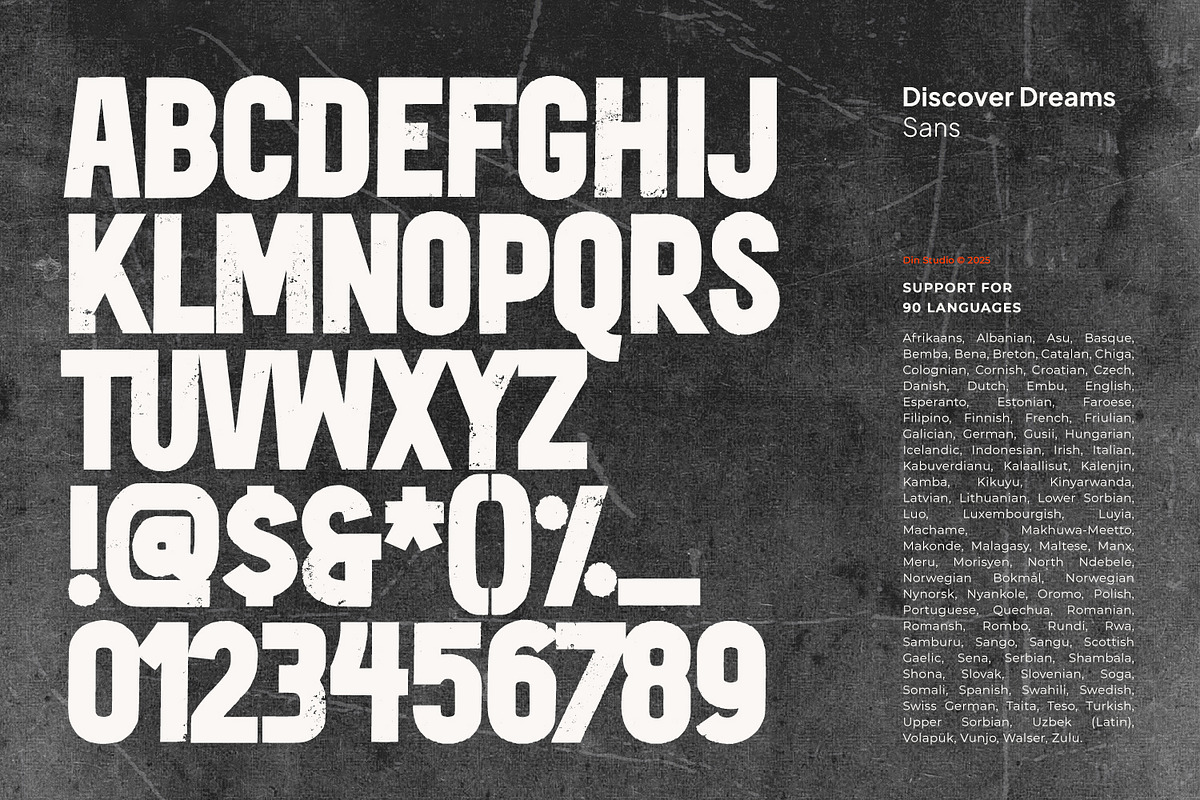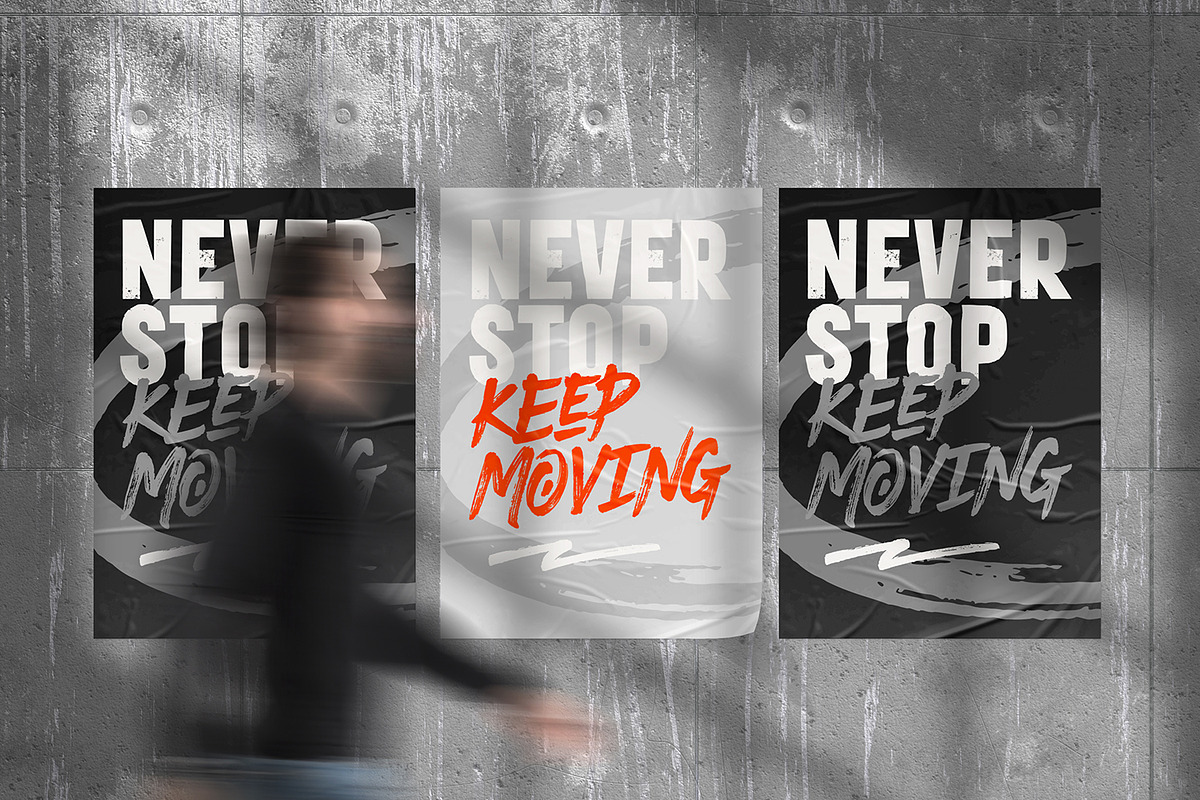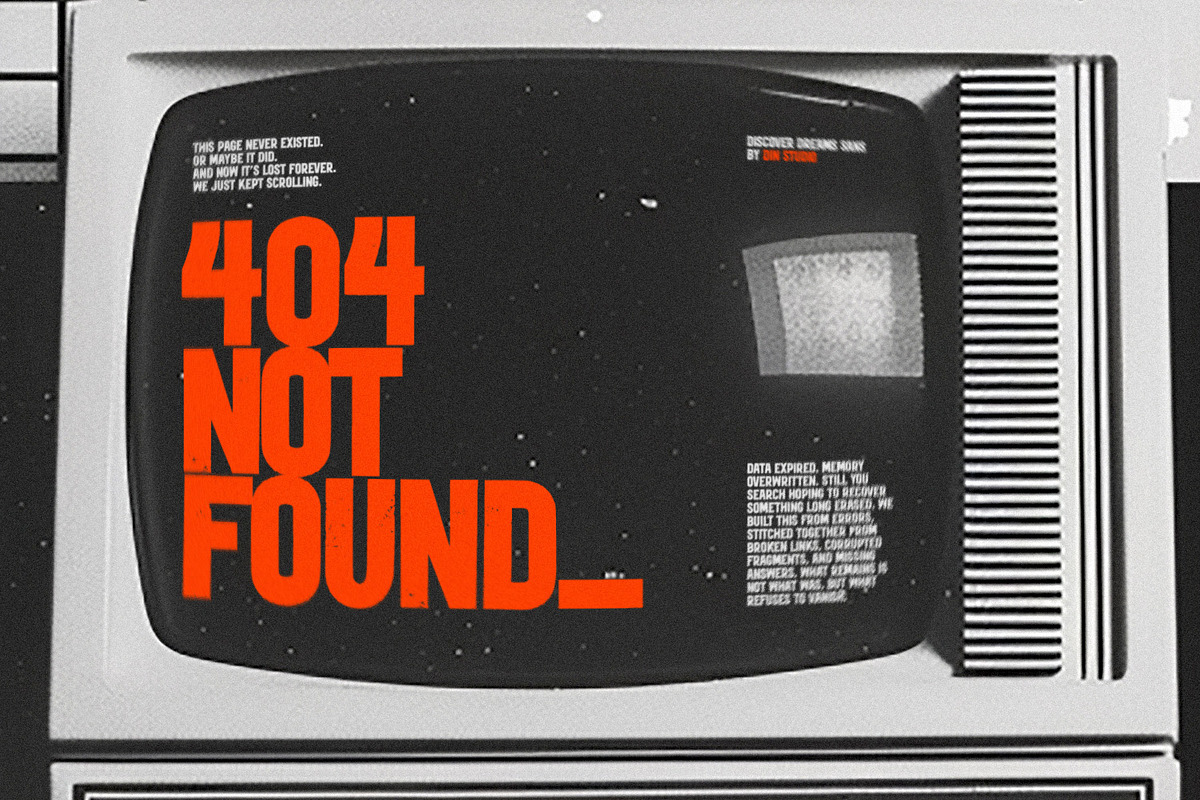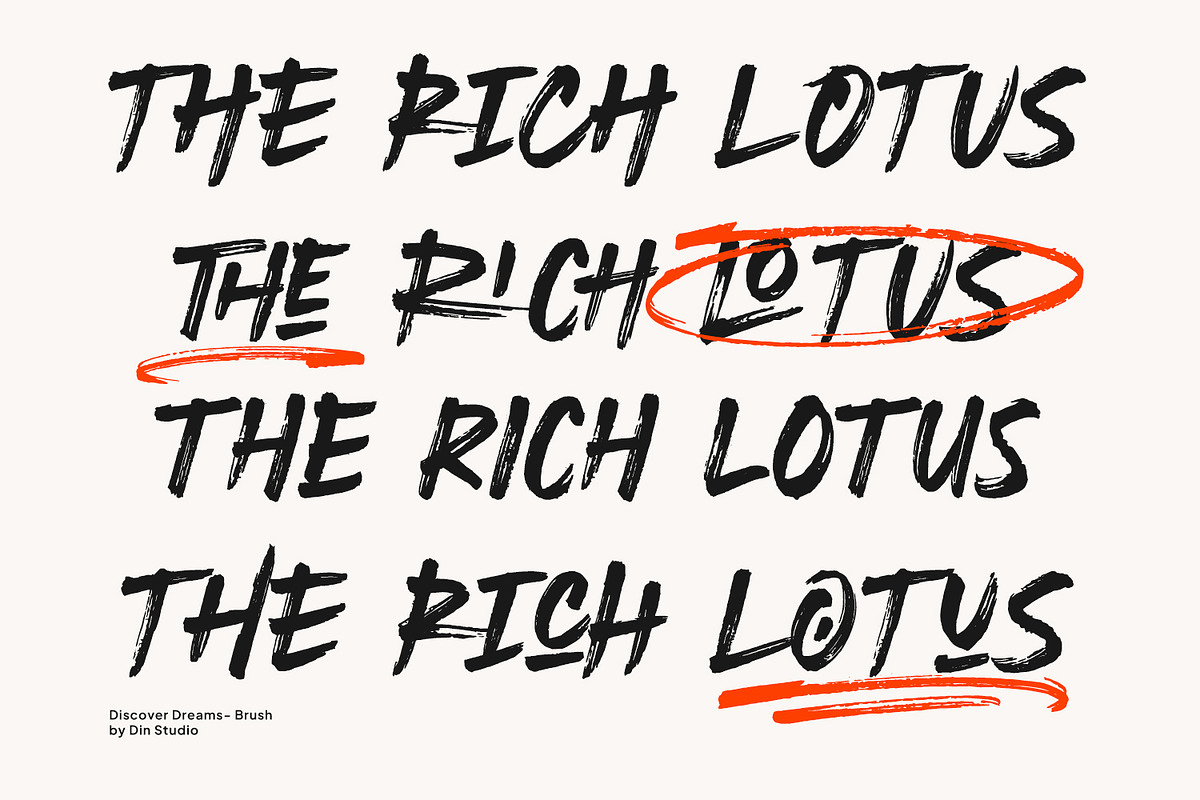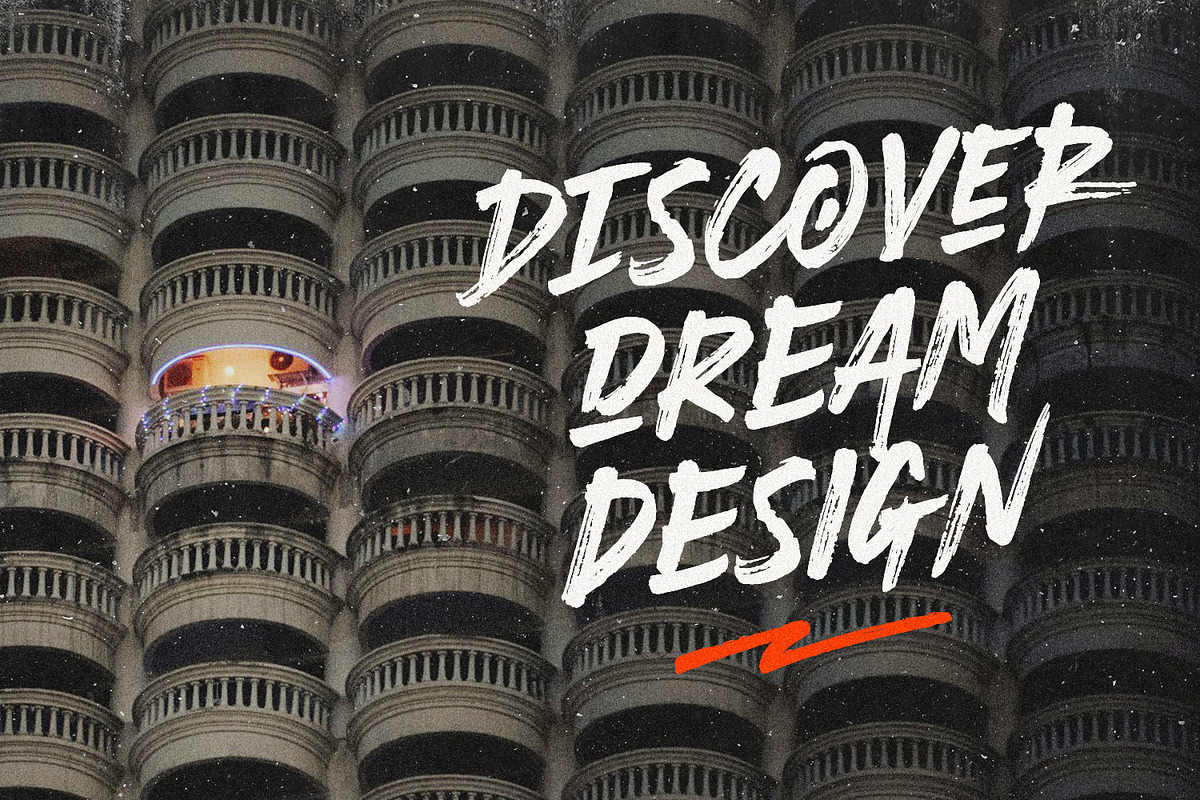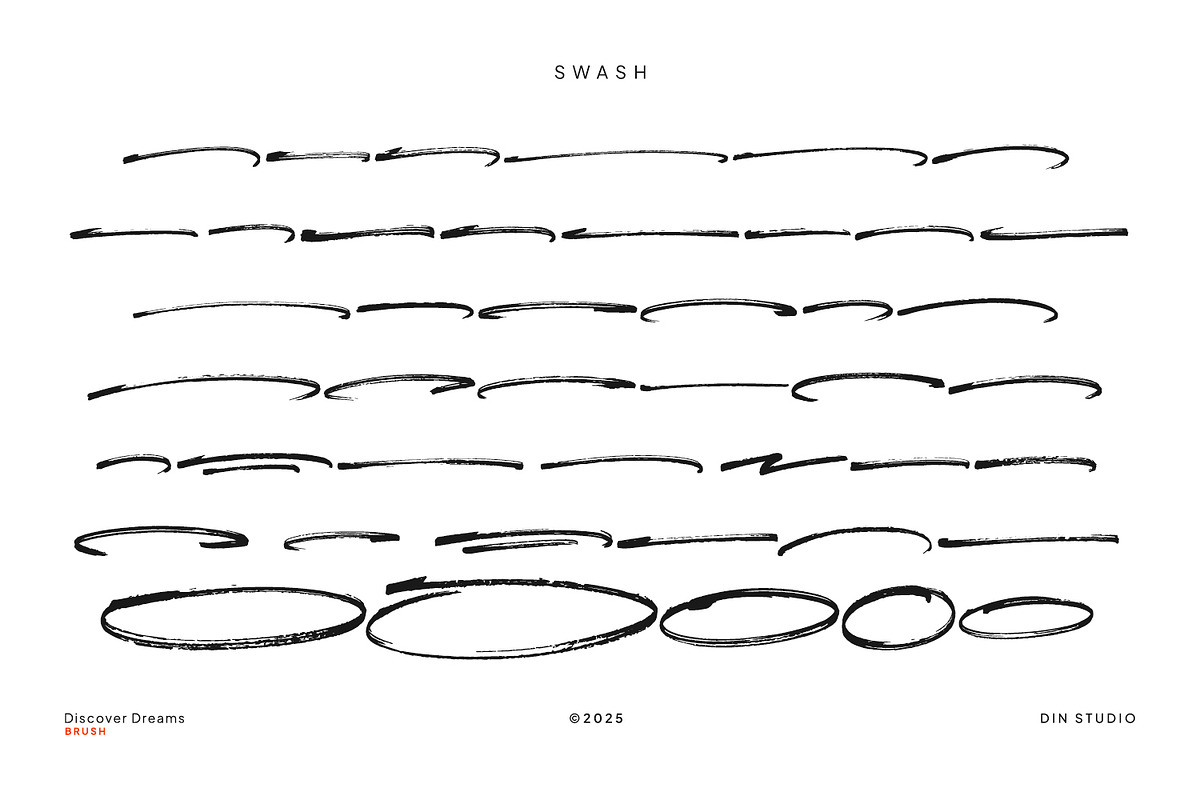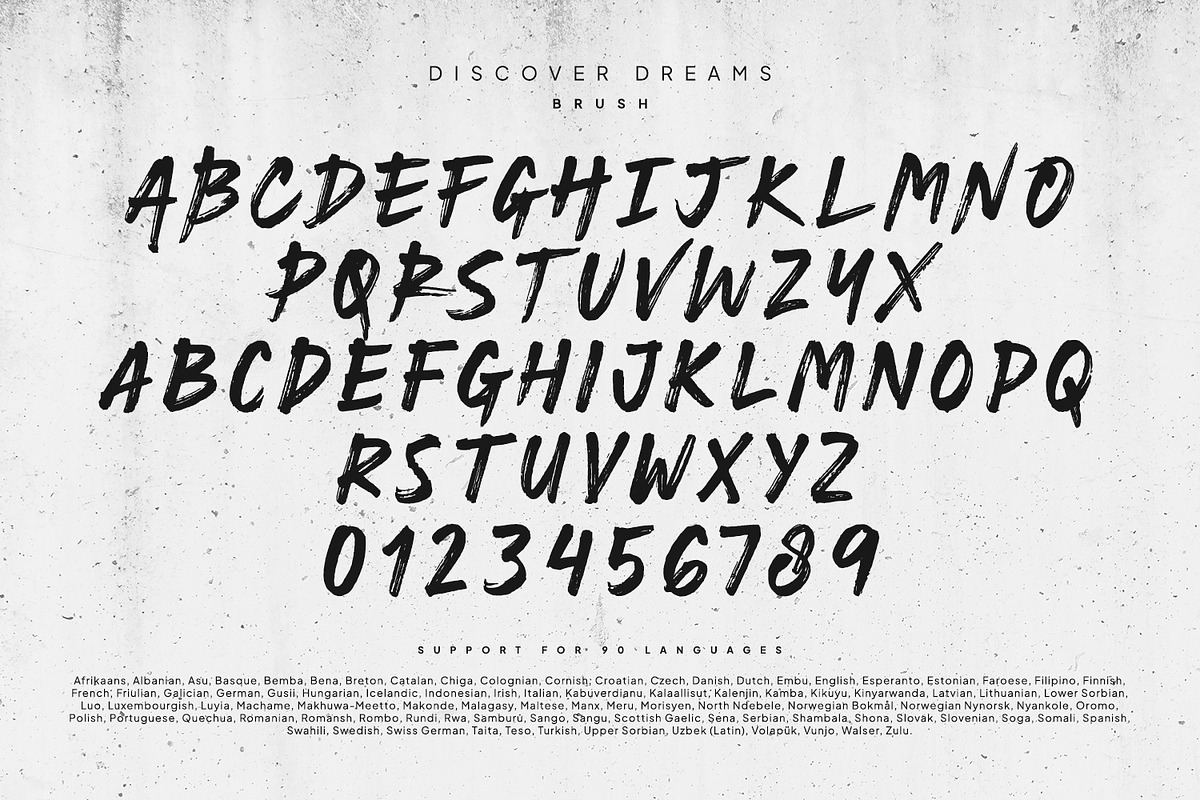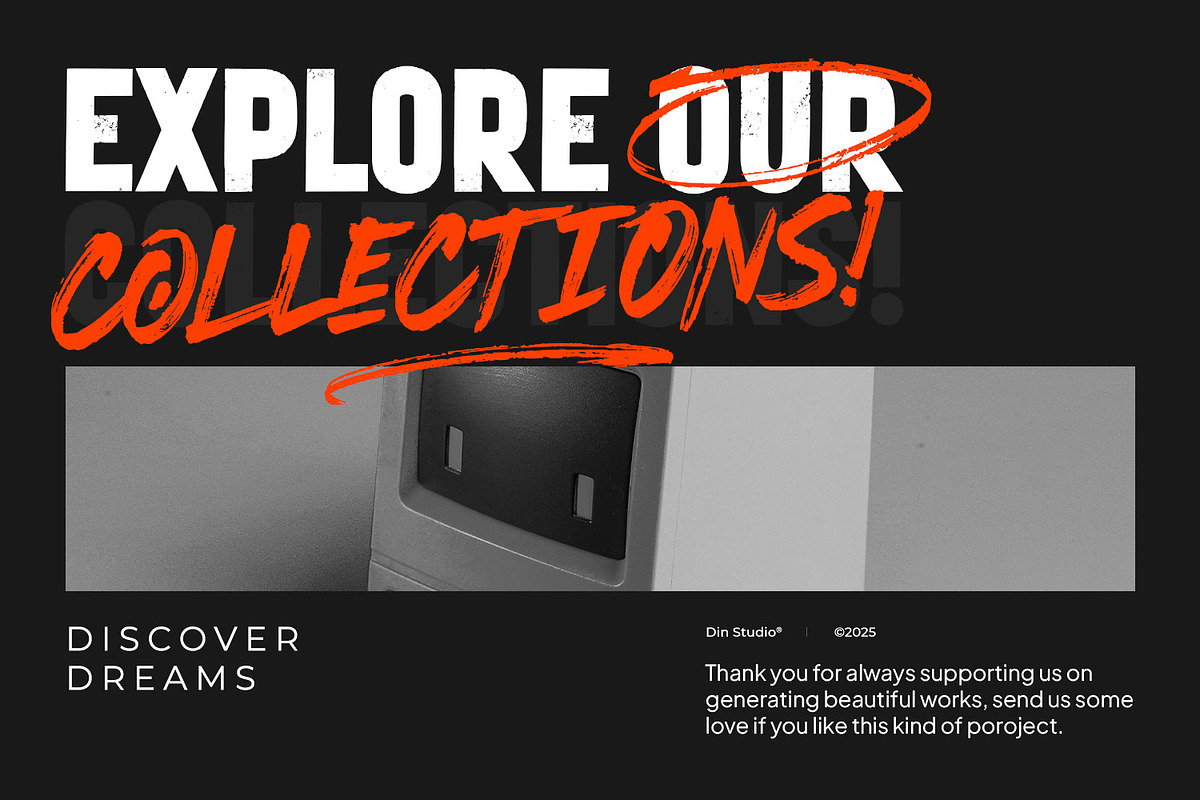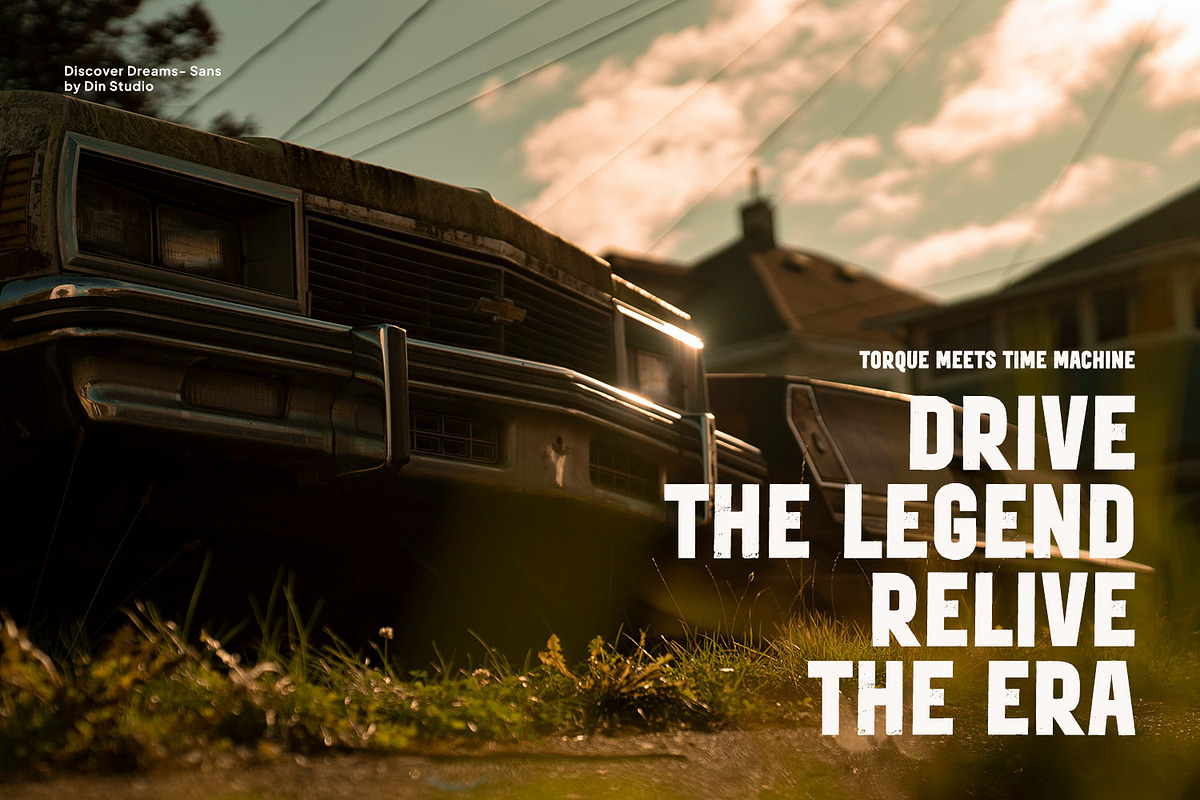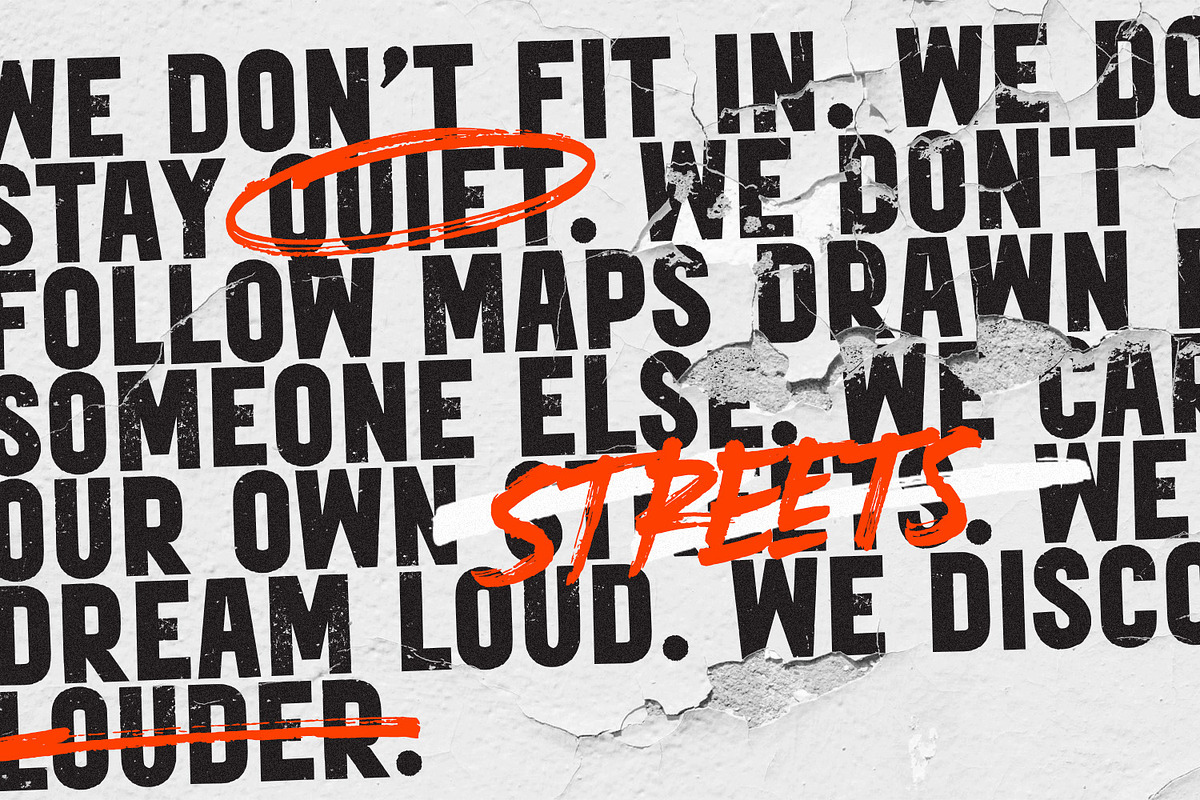
Discover Dreams
Discover Dreams is a bold and inspiring font duo that fuses authentic brushwork with rugged modern typography. The brush font, crafted in bold uppercase letters, captures the raw, dynamic energy of true hand-painted strokes, bringing a sense of fearless authenticity to your designs. Paired with a grunge-inspired sans serif typeface available in nine versatile weights, Discover Dreams balances expressive artistry with edgy, textured character. This duo delivers a striking, adventurous typographic combination that dares you to dream boldly. In addition, enjoy the features here.
Discover Dreams fits in name cards, branding, packaging, posters, headlines, editorial designs, and many more designs. Find out more ways to use this font by taking a look at the font preview.